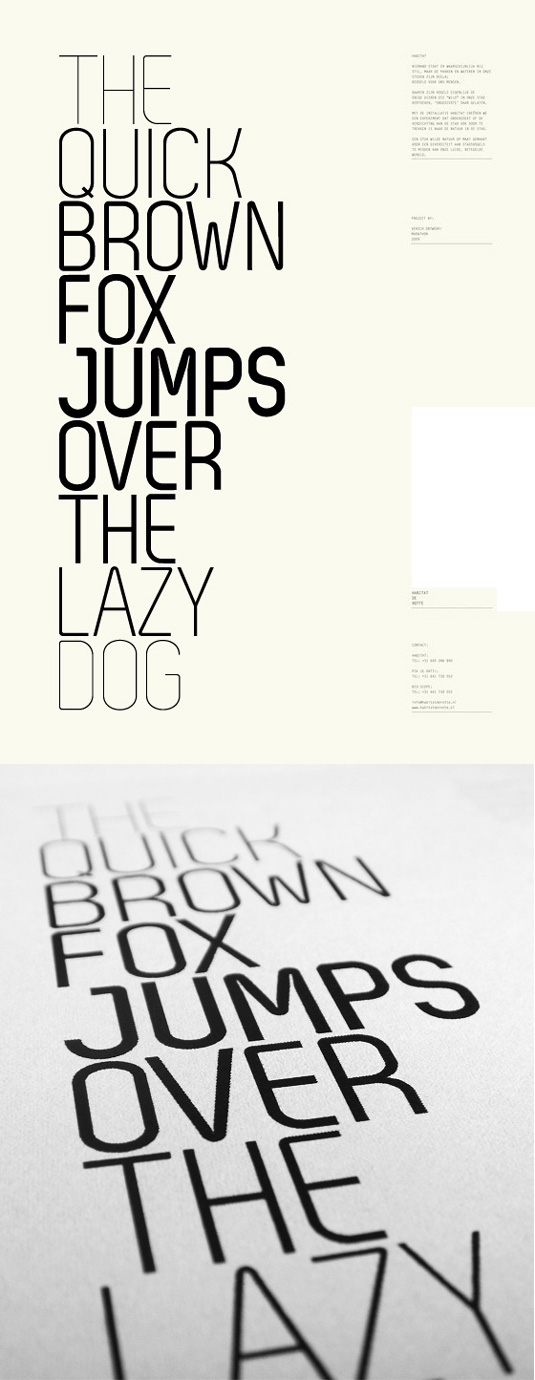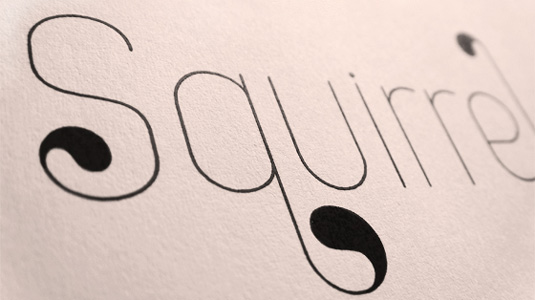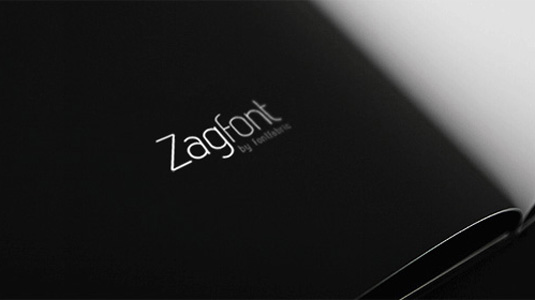
Font of the day: Zag
Every day we showcase the best fonts on the web. Today it's Zag by Svetoslav Simov.
Zag by Svetoslav Simov
Zag is a custom sans font, created by type designer Svetoslav Simon. With a nod to Art Deco, Zag is available in seven different weights, thin, light, normal, deco thin, drops thin, bold and regular, with the latter two available as a free download.